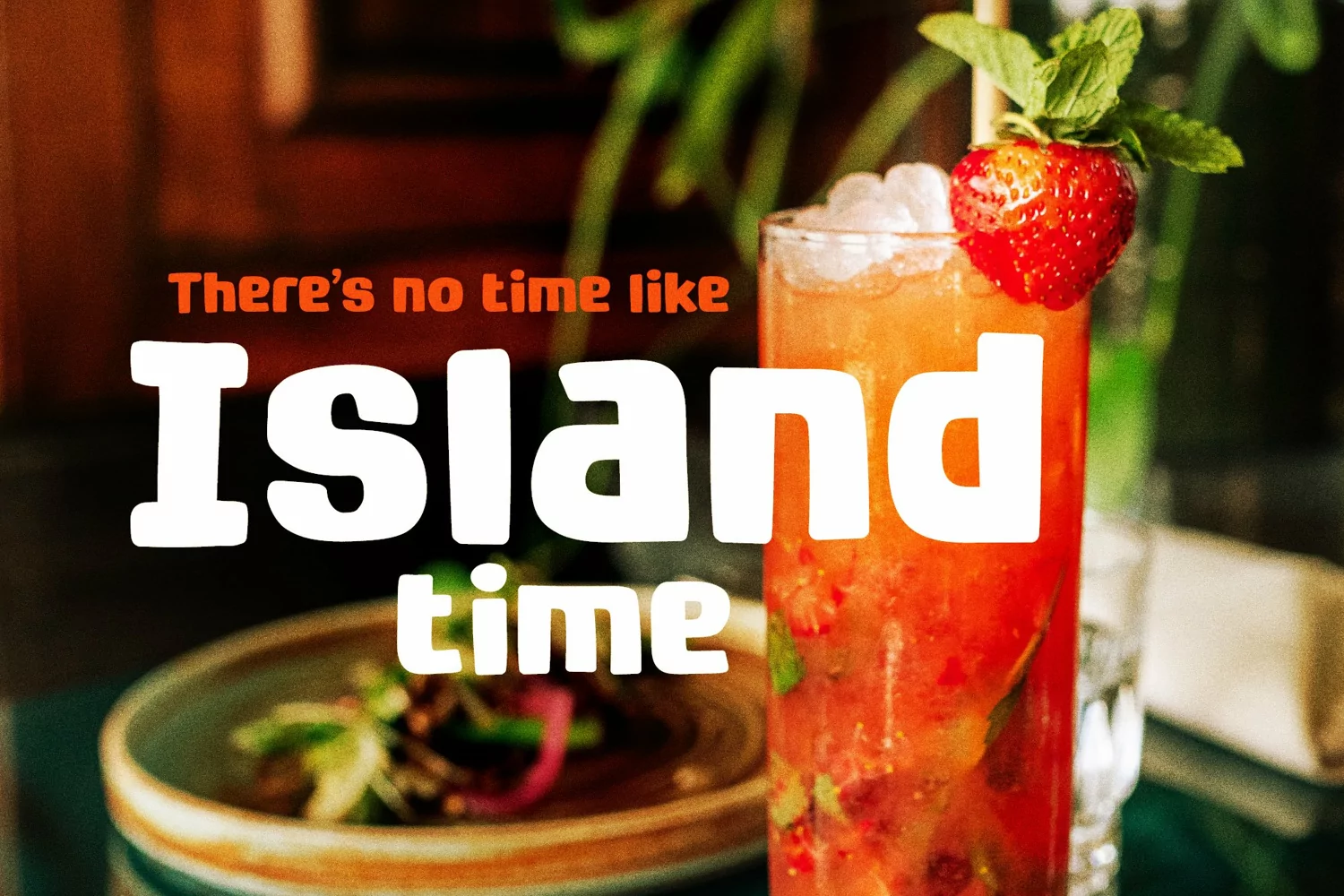
Bring a little tropical island vibe to your next project with Kuloko (Hawaiian for 'Inline')! Kuloko features offset handwritten characters with a bold marker like aesthetic, which gives the font a nice tropical tiki appearance. Kuloko's funky look is sure to capture attention in headlines on websites, social media graphics, logos, branding and so much more!
Also included is a handwritten inline version of Kuloko for greater design variety!